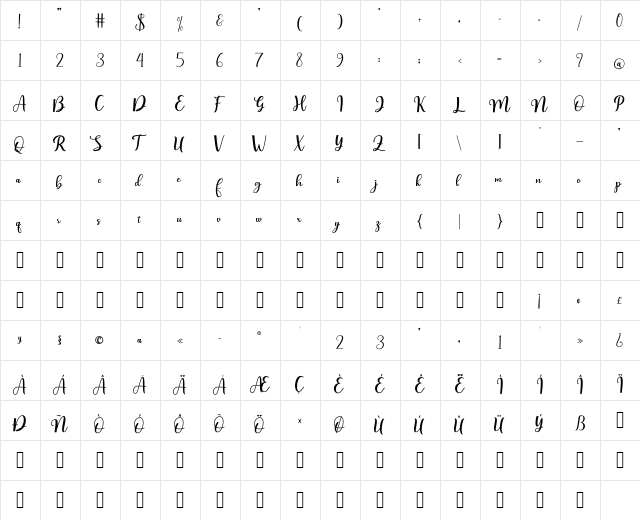
fatayah irhami Font Preview
fatayah irhami
fatayah irhami Font Details
| Style | irhami |
| Designer | MUHAMMAD YONI |
Design Context for fatayah Typeface
fatayah is a composed and adaptable typeface that performs quietly and consistently across a wide range of design contexts.